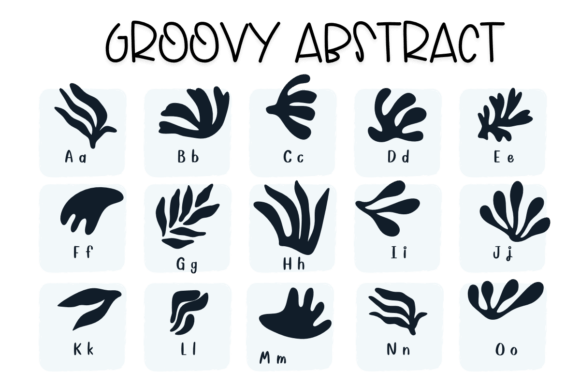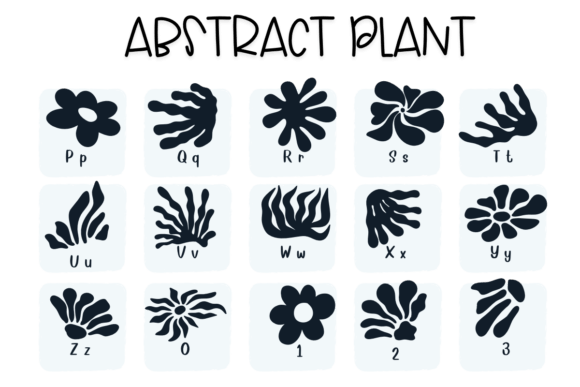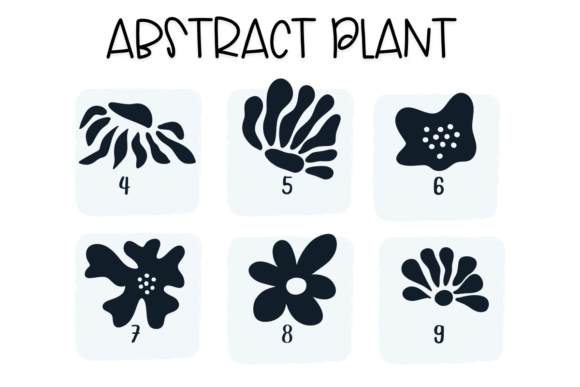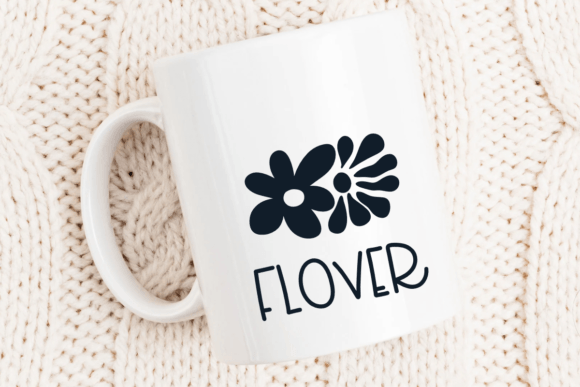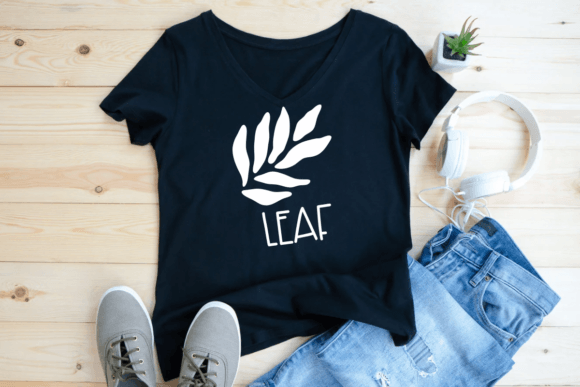
Introduction to Groovy Abstract Font
Have you ever been in a moment where you’re brainstorming ideas for a creative project and suddenly, everything just clicks? You see a blank canvas, a blank piece of paper, and suddenly, a spark of inspiration strikes. This is what the Groovy Abstract Font can bring to your design world.
As a designer, you’re always on the lookout for unique and high-quality design resources that can elevate your projects. This is where the Groovy Abstract Font comes in – a dingbats font with a sketch style that’s perfect for adding that extra oomph to your designs. Whether you’re working on a wedding invitation, a DIY project, or a logo, this font is a valuable addition to your design toolkit.
Key Features of Groovy Abstract Font
- High-quality, unique design resource ideal for creative projects and modern designs.
- Includes a transparent background, making it easy to layer over images and other design elements.
- Features a bold, abstract design with intricate details and patterns.
- Perfect for use in graphic design, digital art, and other creative projects where a unique font is needed.
- Easy to customize and edit, making it a versatile design resource for any creative project.
Honest Review: Groovy Abstract Font
I recently stumbled upon the Groovy Abstract Font, and I must say, it’s a great addition to my design resource collection. This font is perfect for anyone looking to add a touch of creativity to their next project.
What works well is the high quality of the font. The design is intricate and visually appealing, making it ideal for use on a transparent background. The font is also free to download, which is always a bonus for designers on a budget.
- ✨ Great for creative projects: The Groovy Abstract Font is perfect for designers who want to add a unique touch to their work.
- ✨ High-quality design: The font’s intricate design makes it stand out from more basic fonts.
However, I do have a few limitations to note. The font may not be suitable for use in body text, as it can be quite busy. Additionally, some users may find the font’s design to be overwhelming.
Overall, I’m impressed with the Groovy Abstract Font. It’s a great design resource that can add a unique touch to any project. While it may have some limitations, I think it’s well worth the download.
Tips for Getting the Most Out of Groovy Abstract Font
For the best results, use the Groovy Abstract Font on a transparent background to give your design a clean and modern look. You can also experiment with different font sizes and styles to create a unique and eye-catching effect.
The Groovy Abstract Font is a versatile design resource that can be used for a variety of creative projects, including logos, business cards, and social media graphics. Its high quality and unique style make it a great choice for designers looking to add a touch of elegance to their work.
Yes, the Groovy Abstract Font is a versatile design resource that can be used for various digital projects. Its high-quality design and transparent background make it an ideal choice for website design, mobile app development, and other digital creative projects.